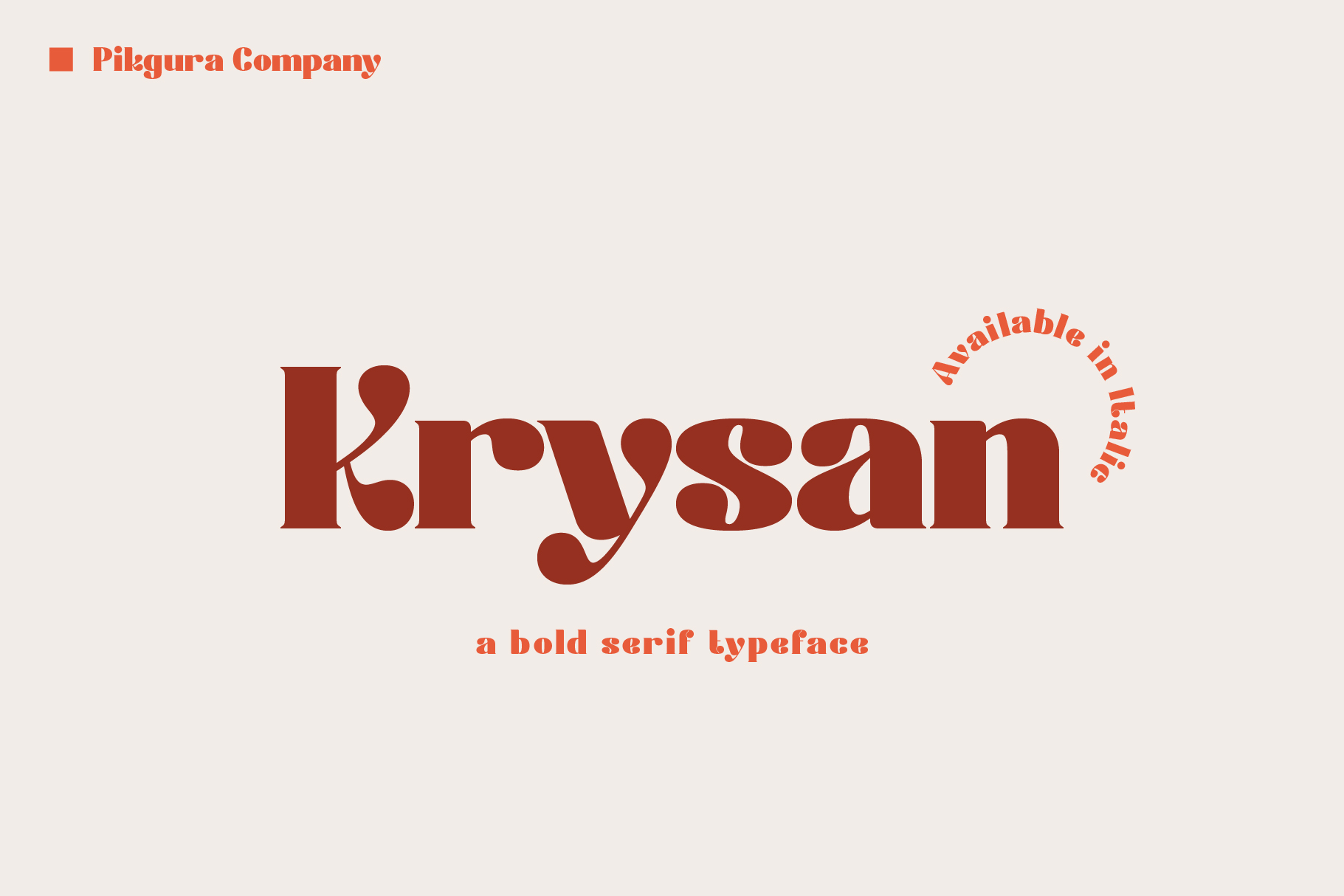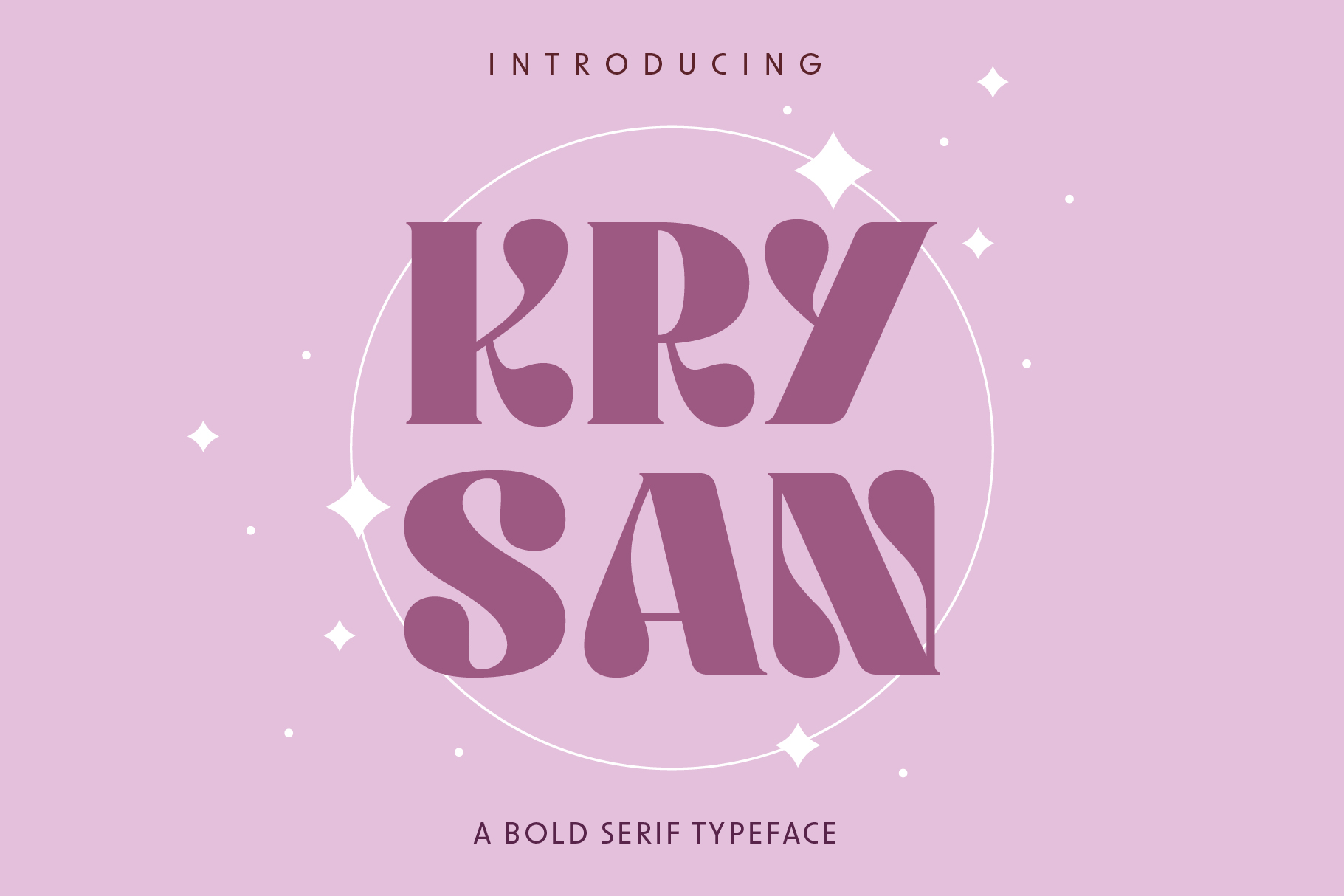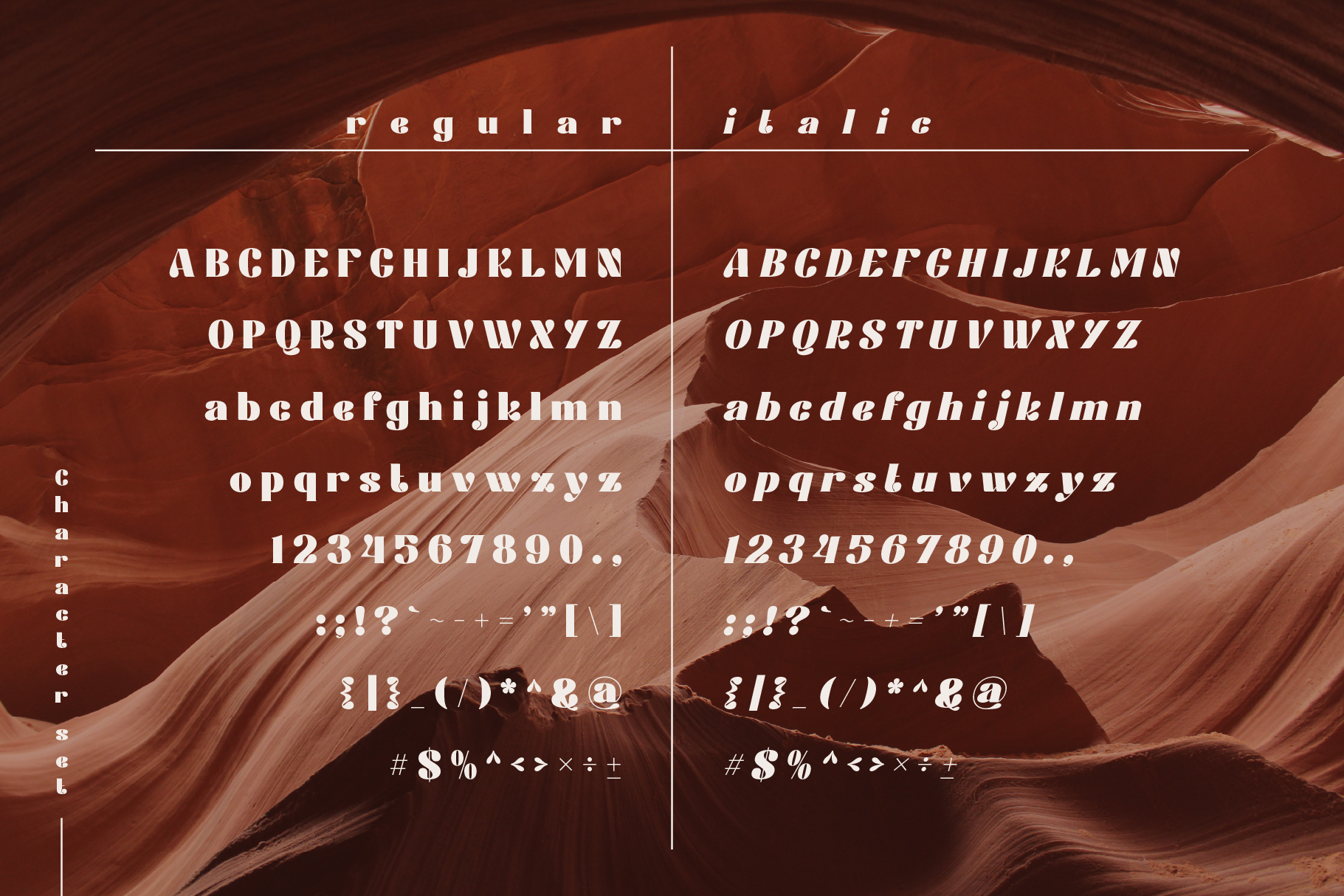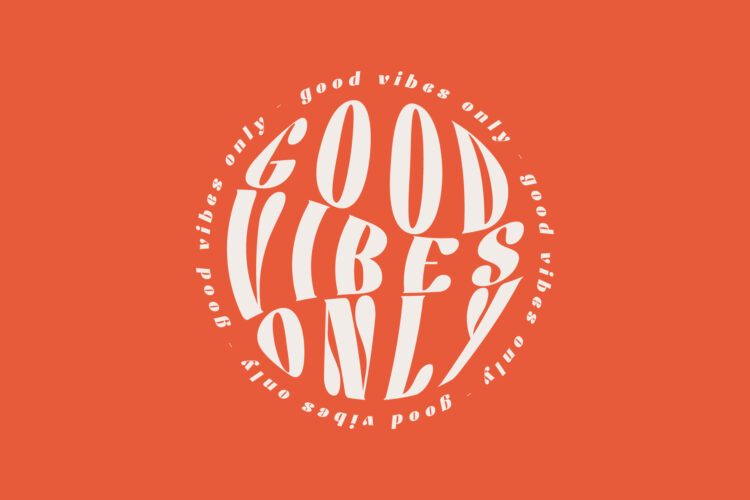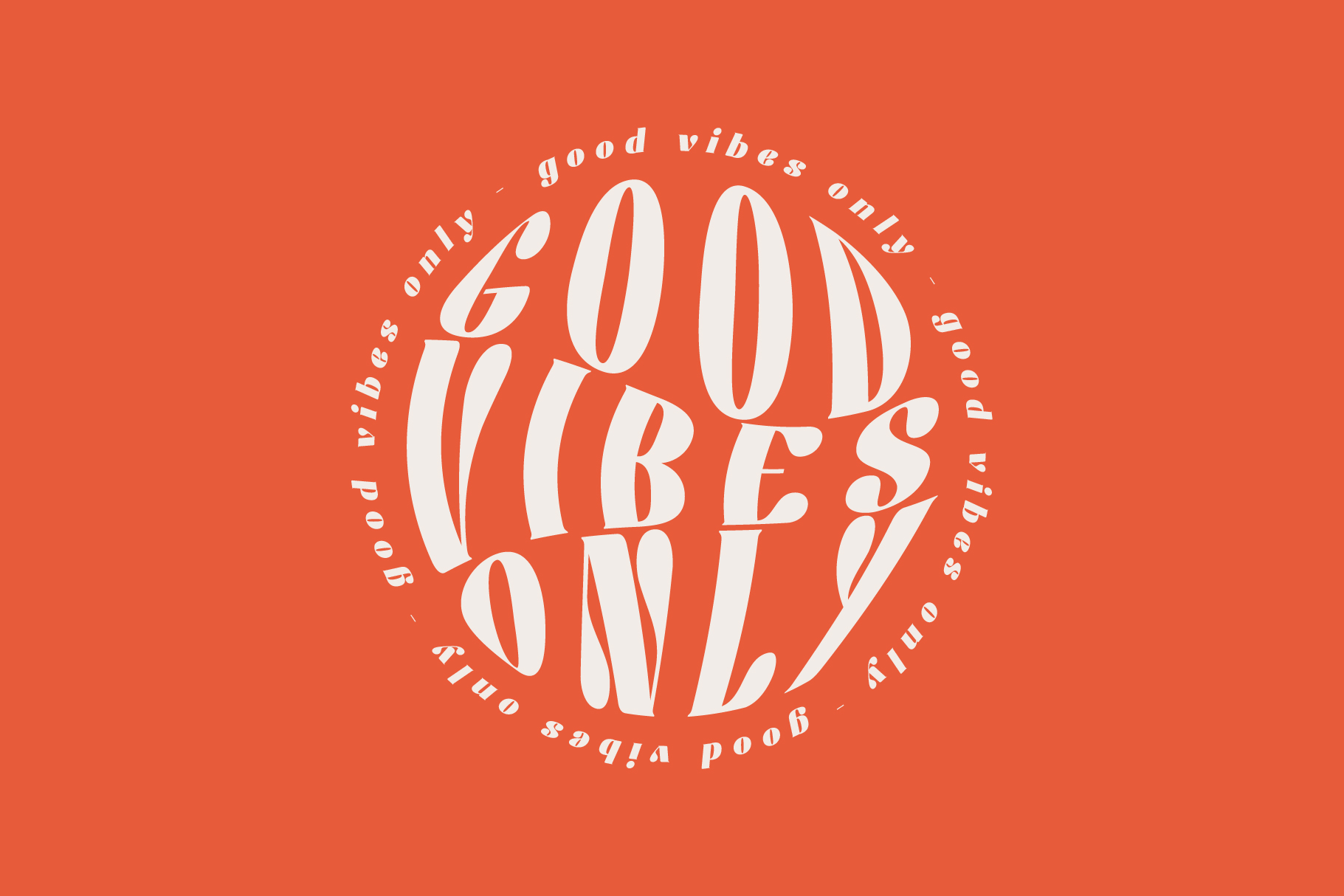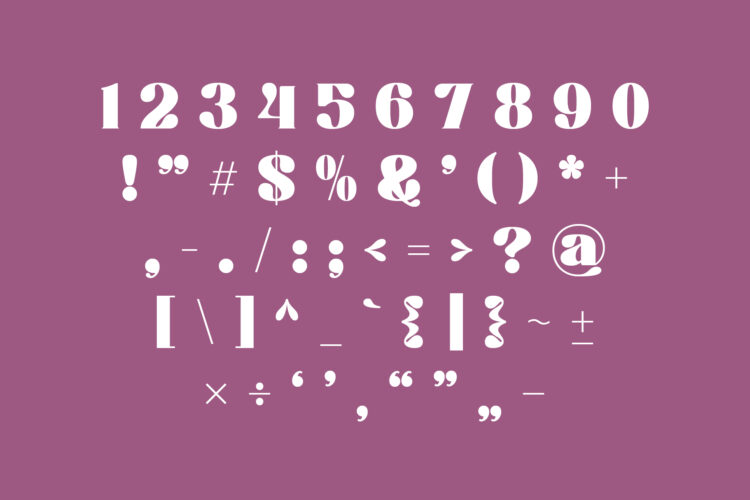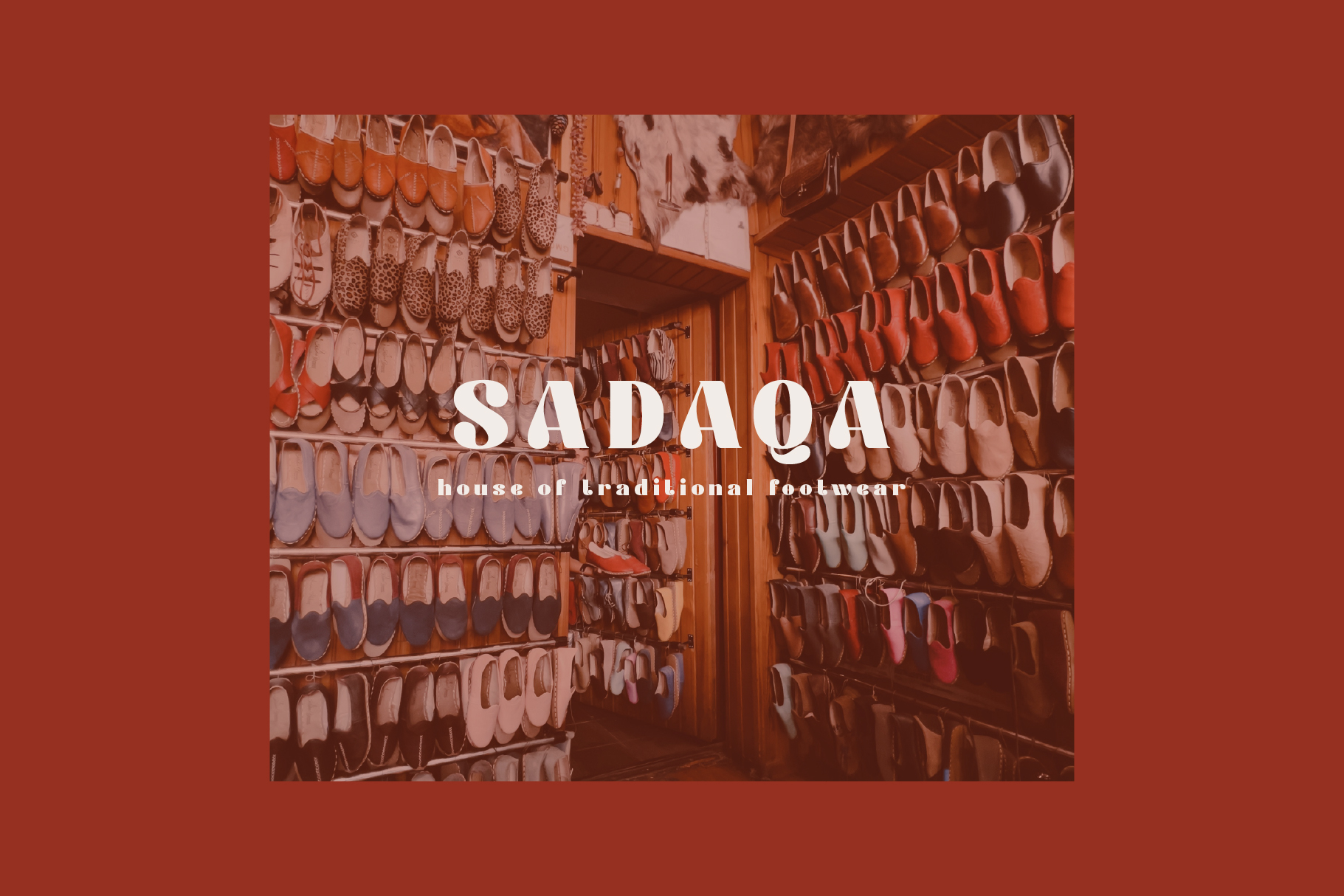
Krysan - Regular
Krysan - Italic
Meet Krysan Serif — a sleek retro font that instantly boosts your brand or poster design. With bold, clean lines and vintage appeal, Krysan adds style without going over the top. Moreover, it works great for logos, headlines, and even body text.
Because its design maintains readability, your message comes through loud and clear. In addition, Krysan features uppercase and lowercase letters, numbers, and basic punctuation. Alongside that, it also includes italic styles for every character, giving you extra creative freedom.
Use Krysan Serif to create a cohesive look for your brand or project. Thanks to its retro charm and clean structure, you can make a statement that stands out — yet stays polished and readable.
Krysan – Serif Font